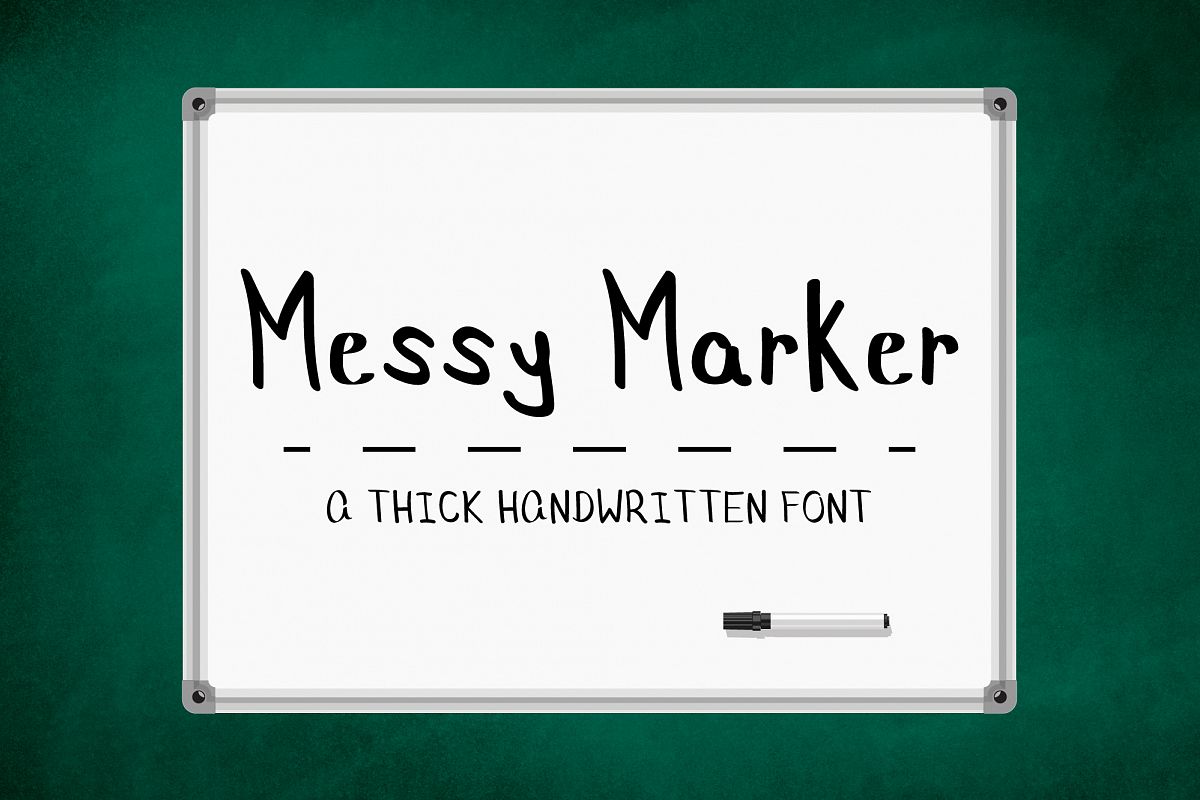
"Magic Marker" back-to-school marker font.
Magic Marker is a hand-drawn sans font that is perfect for social media or crafty projects. Use if for branding, crafts for decor, invitations, and more! This font includes numbers and basic punctuation marks.